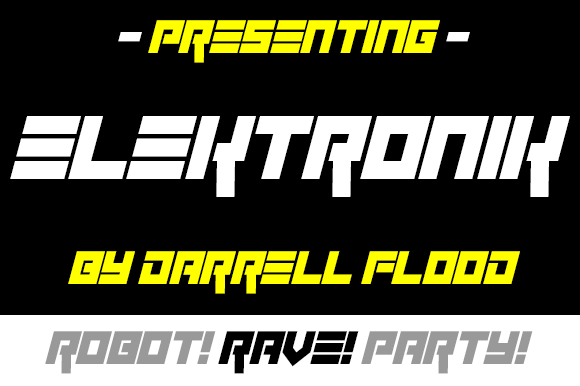
Introducing Elektronik Font: The Ultimate Choice for Bold and Futuristic Designs
In the world of typography, fonts play a crucial role in conveying the tone and personality of a design. When it comes to creating bold and futuristic designs, Elektronik Font is an excellent choice. This energetic and cutting-edge display font is perfect for designers and crafters looking to add a touch of edginess to their projects.
What Makes Elektronik Font Stand Out?
Elektronik Font is a distinctive and extremely unique font that is sure to grab attention. Its futuristic style is characterized by sharp lines, geometric shapes, and a bold aesthetic that exudes confidence and energy. Whether you’re working on an adventure book cover, magazine headline, social media post, or any other bold project, Elektronik Font is the perfect choice.
Key Features of Elektronik Font
- Energetic and Futuristic: Elektronik Font is designed to convey a sense of energy and futurism, making it perfect for projects that require a bold and edgy look.
- Distinctive and Unique: This font is unlike any other, with its sharp lines and geometric shapes creating a truly one-of-a-kind look.
- Extremely Versatile: Elektronik Font can be used for a wide range of projects, from adventure book covers and magazine headlines to social media posts and more.
- Easily Readable: Despite its bold and edgy design, Elektronik Font is surprisingly easy to read, making it perfect for headlines and titles.
Use Cases for Elektronik Font
Elektronik Font is an incredibly versatile font that can be used for a wide range of projects. Here are some use cases to get you started:
- Adventure Book Covers: Add a touch of excitement and adventure to your book covers with Elektronik Font.
- Magazine Headlines: Use Elektronik Font to create bold and eye-catching headlines that grab readers’ attention.
- Social Media Posts: Add a touch of futurism to your social media posts with Elektronik Font.
- Poster Designs: Create bold and eye-catching posters with Elektronik Font.
- Branding and Logo Design: Use Elektronik Font to create a bold and memorable brand identity.
Tips for Using Elektronik Font
Here are some tips for getting the most out of Elektronik Font:
- Use it Boldly: Elektronik Font is designed to be used boldly, so don’t be afraid to experiment with different sizes and colors.
- Pair it with Simple Fonts: Pair Elektronik Font with simple fonts to create a striking contrast.
- Experiment with Colors: Try out different colors and gradients to add depth and interest to your designs.
Elektronik Font is an exceptional choice for designers and crafters looking to add a touch of futurism and boldness to their projects. With its energetic and unique design, this font is sure to grab attention and leave a lasting impression. Whether you’re working on an adventure book cover, magazine headline, or social media post, Elektronik Font is the perfect choice. So why wait? Download Elektronik Font today and start creating bold and futuristic designs that inspire and captivate your audience!